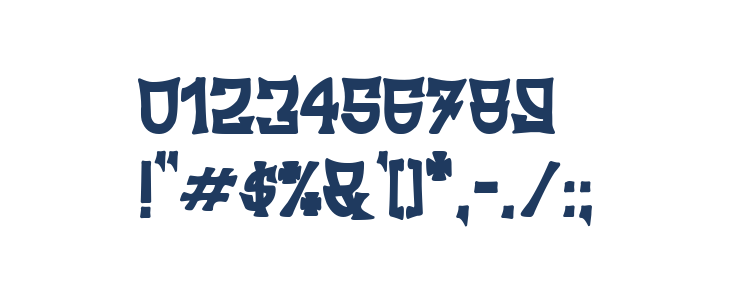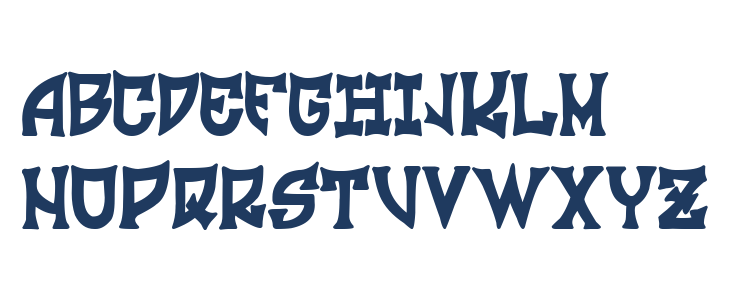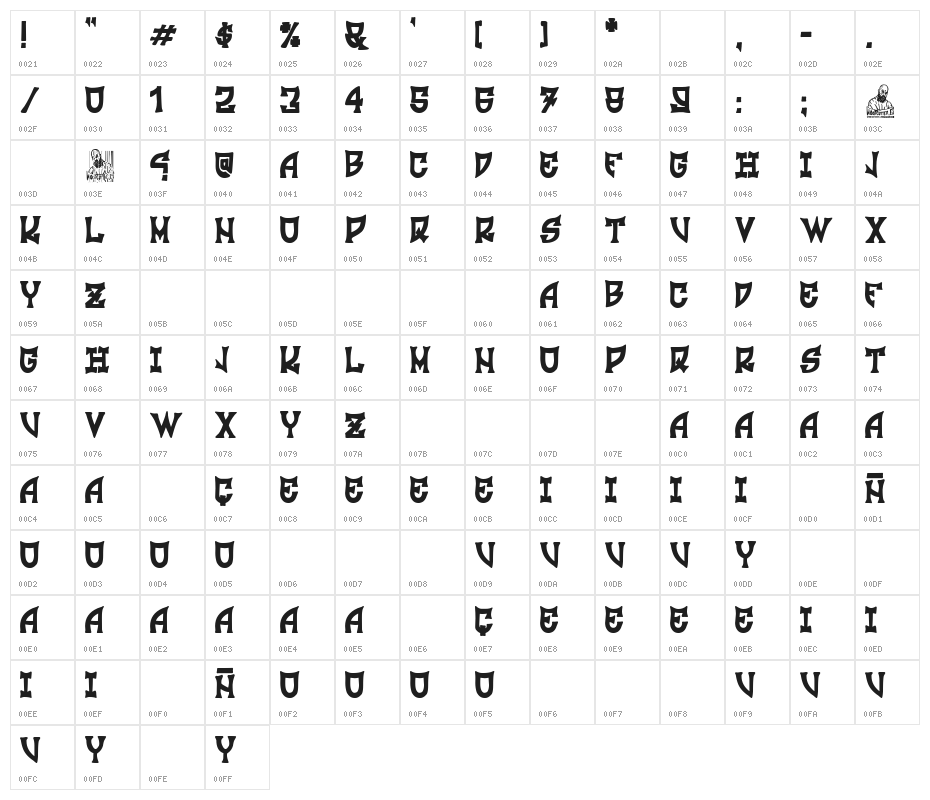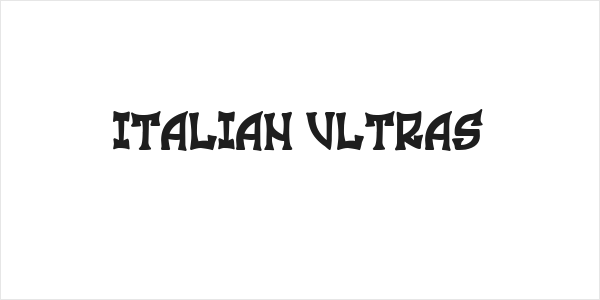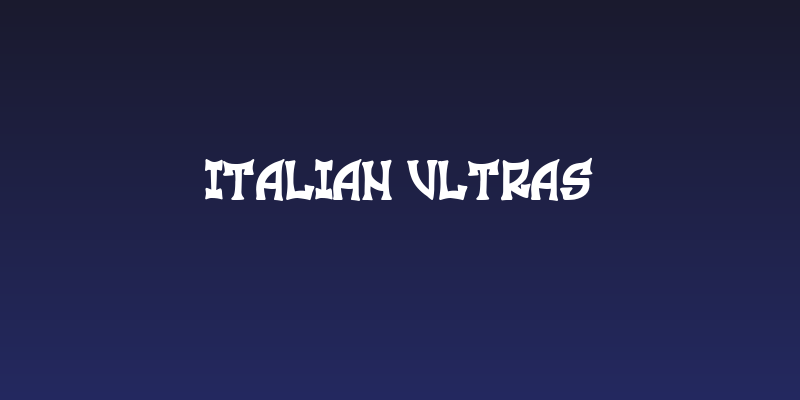
Italian Ultras Font
Italian Ultras Description
A bold, angular display typeface with sharp, exaggerated serifs and dramatic, almost stencil-like forms. The characters have a heavy weight and a slightly condensed width, with high visual impact and a rebellious, energetic feel.
| Overall Style | Decorative, Urban, Aggressive |
| Proposed Projects | Posters, sports branding, music album covers, event flyers, streetwear logos. |